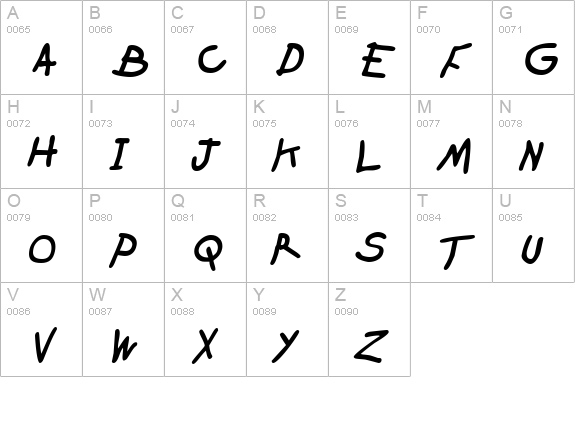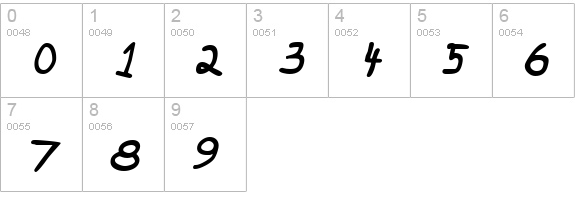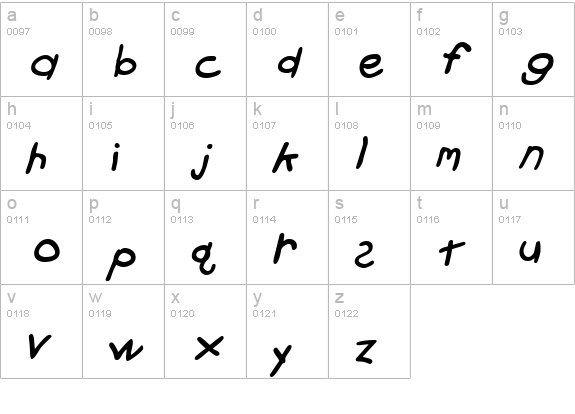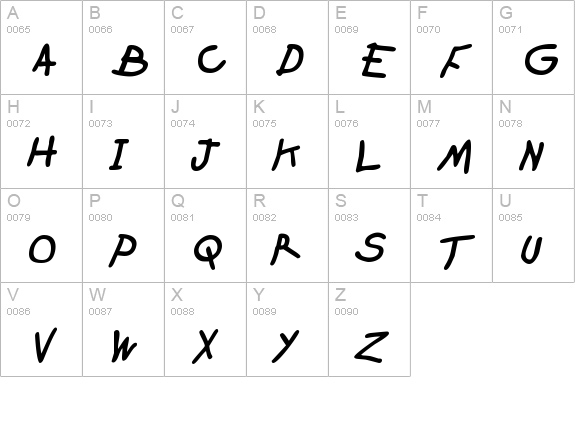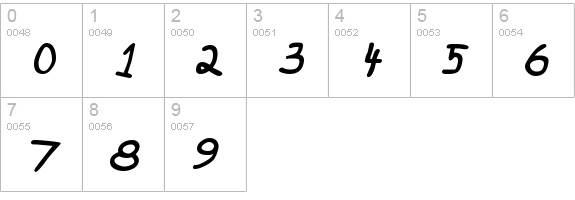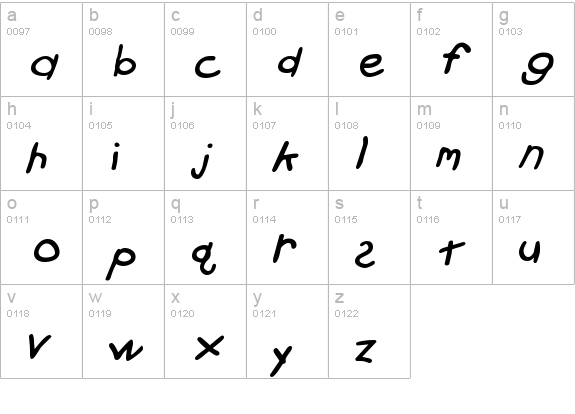
Crayon BlackSlanted font is a playful and unique typeface that perfectly captures the essence of hand-drawn crayon art. With its slanted appearance, this font exudes a sense of movement and creativity, making it ideal for designs that need a touch of whimsy. The bold strokes and slightly irregular edges give Crayon BlackSlanted font a charming and artistic feel, making it perfect for children's books, posters, and any project that requires a fun and vibrant look. Best of all, Crayon BlackSlanted font is completely free to download at FontsMarket.com, allowing you to add a touch of creativity to your designs without breaking the bank. Don't miss out on this fantastic font that will bring your projects to life with its playful charm and unique style.